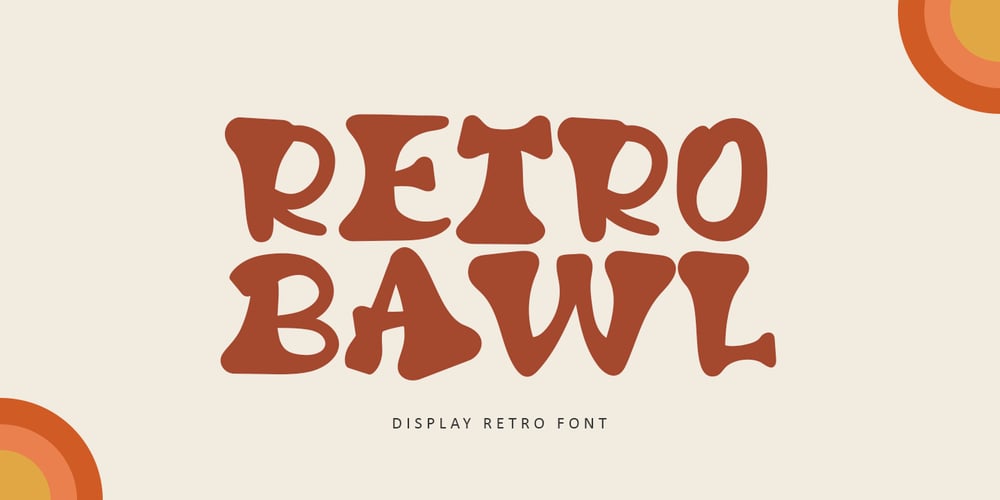
Retro Bawl Font Family was designed by Bayu Suwirya and published by Illushvara. Retro Bawl contains 1 styles and family package options. Retro Bawl is a display font, inspired by retro vibes. Back in 90’s themes with round line and bold concept. Will make your design projects stand out! Add this font to your most creative ideas for Retro projects, and can be used various purposes such as magazine, logos, packaging, headings, bottles drinks and so much more. If you have any question, don’t hesitate to contact me. Happy Designing !!!Thank You.